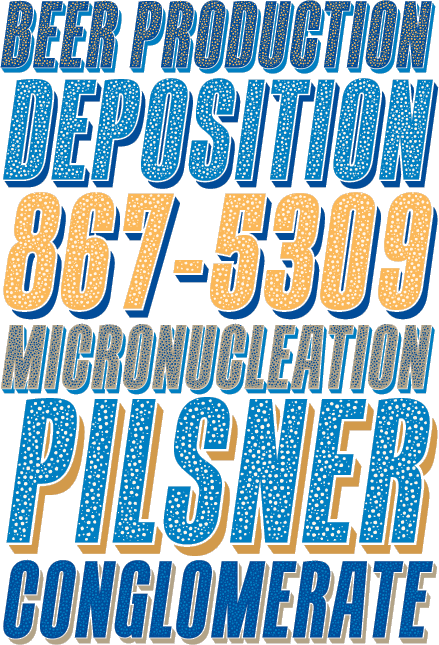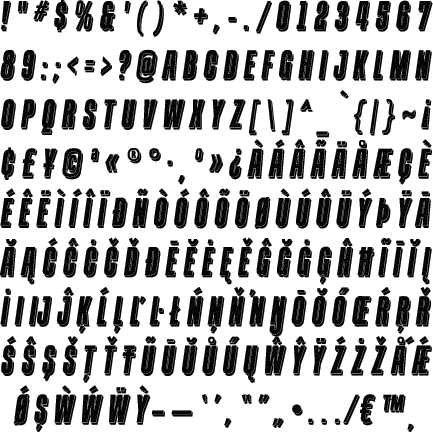
containment
Containment is a multilayered font system for creating headlines with fizz, gravel, snow, sand etc. With Containment, you get four fonts: A plain layer, a shadow layer, a crunchy-little-dots layer and a mix of all three. Looking for a companion font for Containment? Try Tandelle.